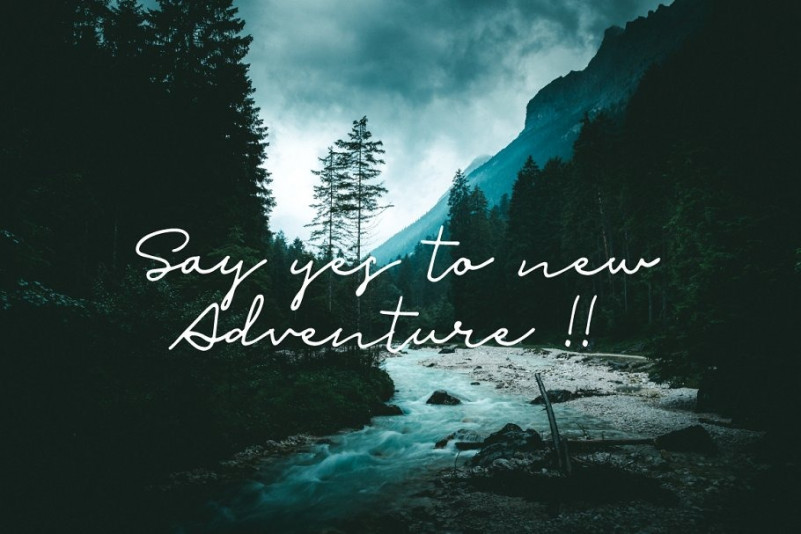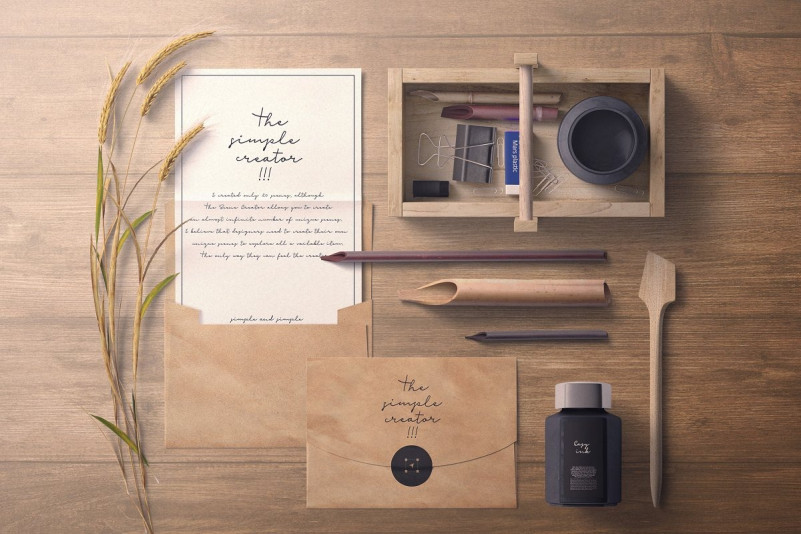
Bielifild Handwritten Font
Bielifild Handwritten Font is a monoline script font, which can be used for your design needs, such as POSTER, MAGAZINE, SIGNATURE, FLYER, BROCHURE, QOUTES, BUSINESS CARD, COVER BOOK, FLIM, etc. can use Mac & Windows